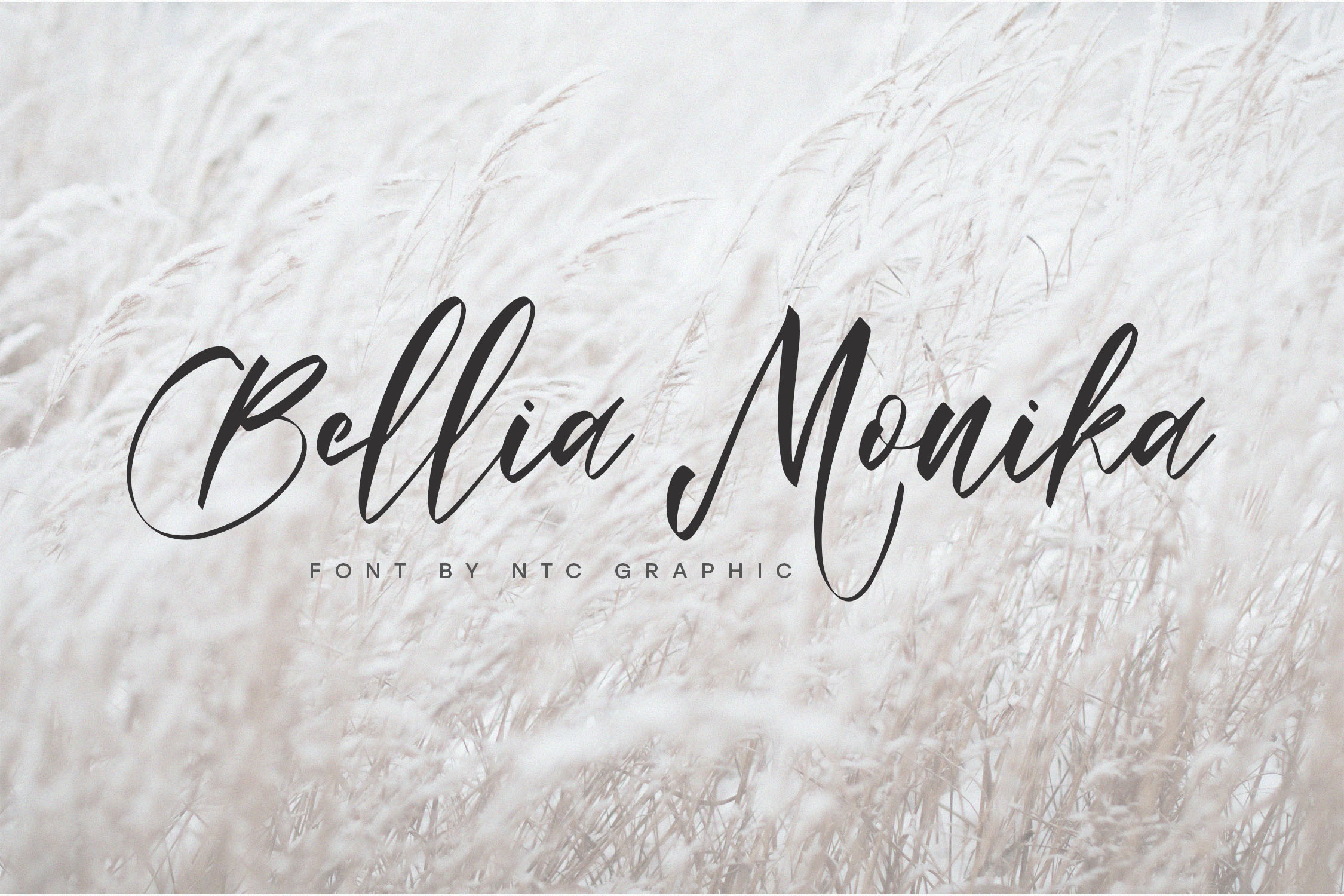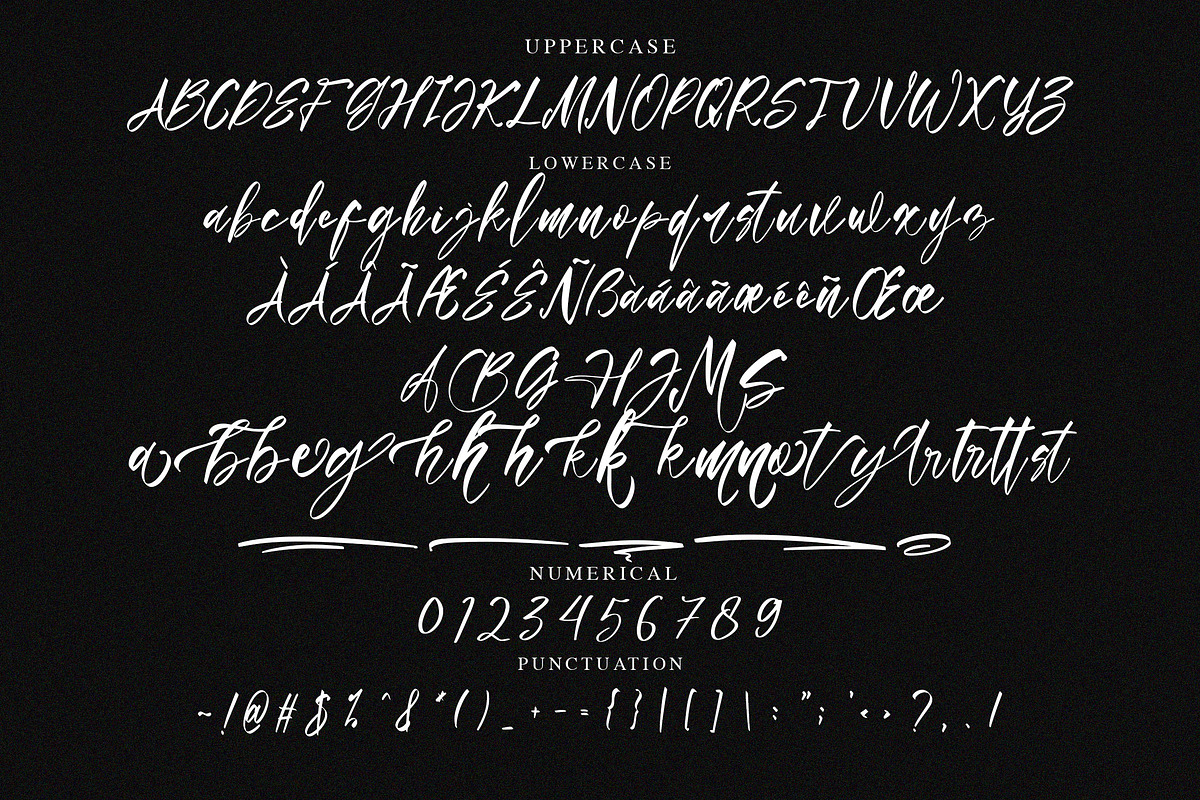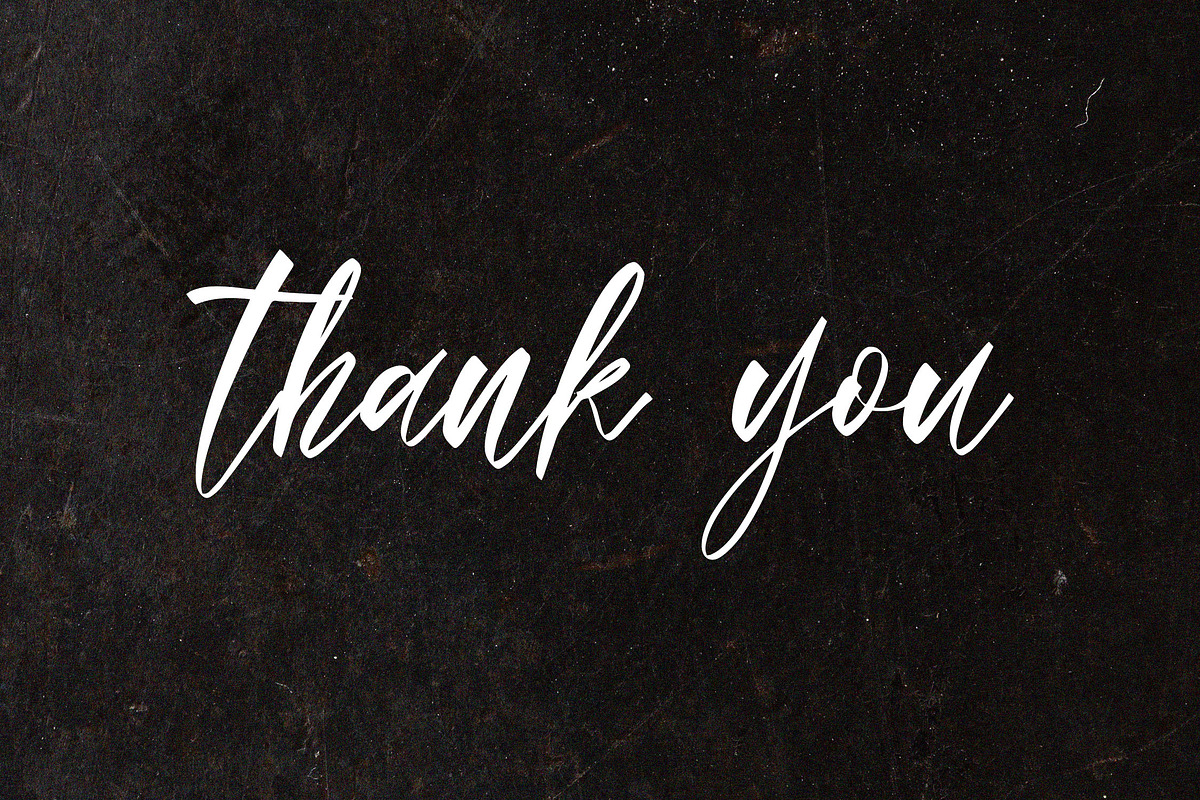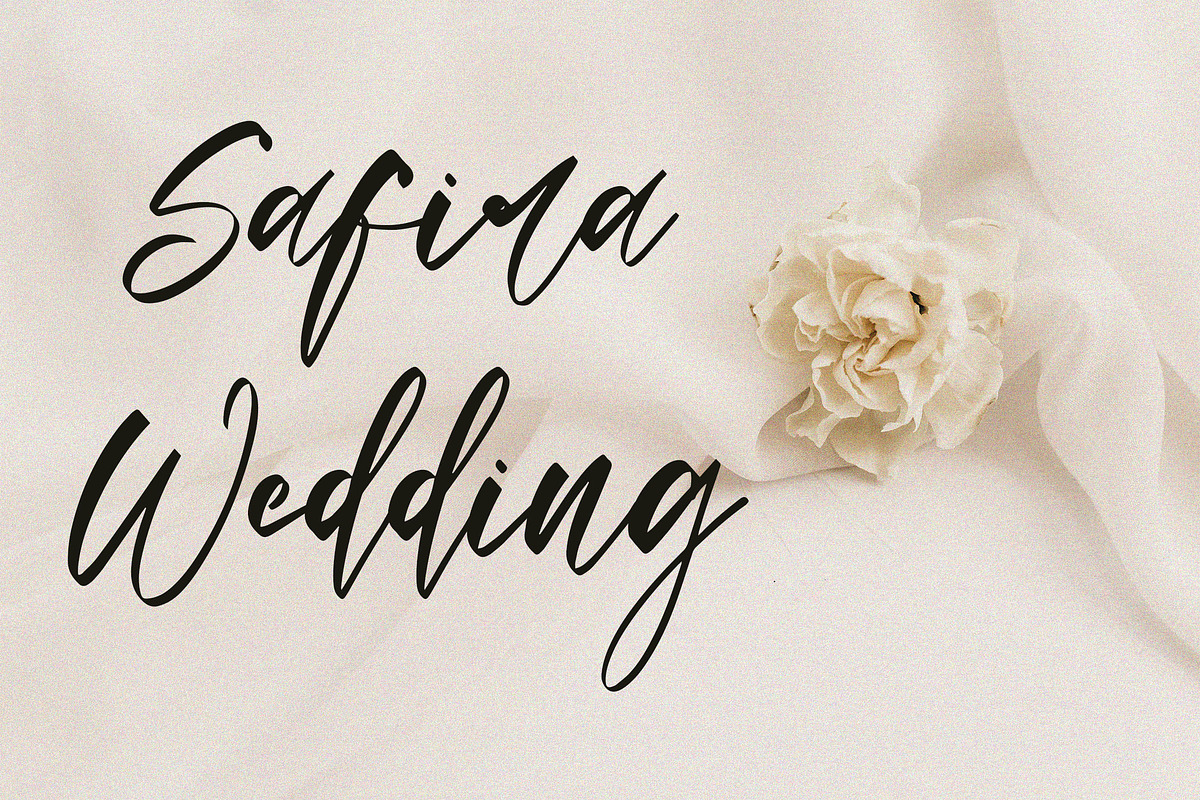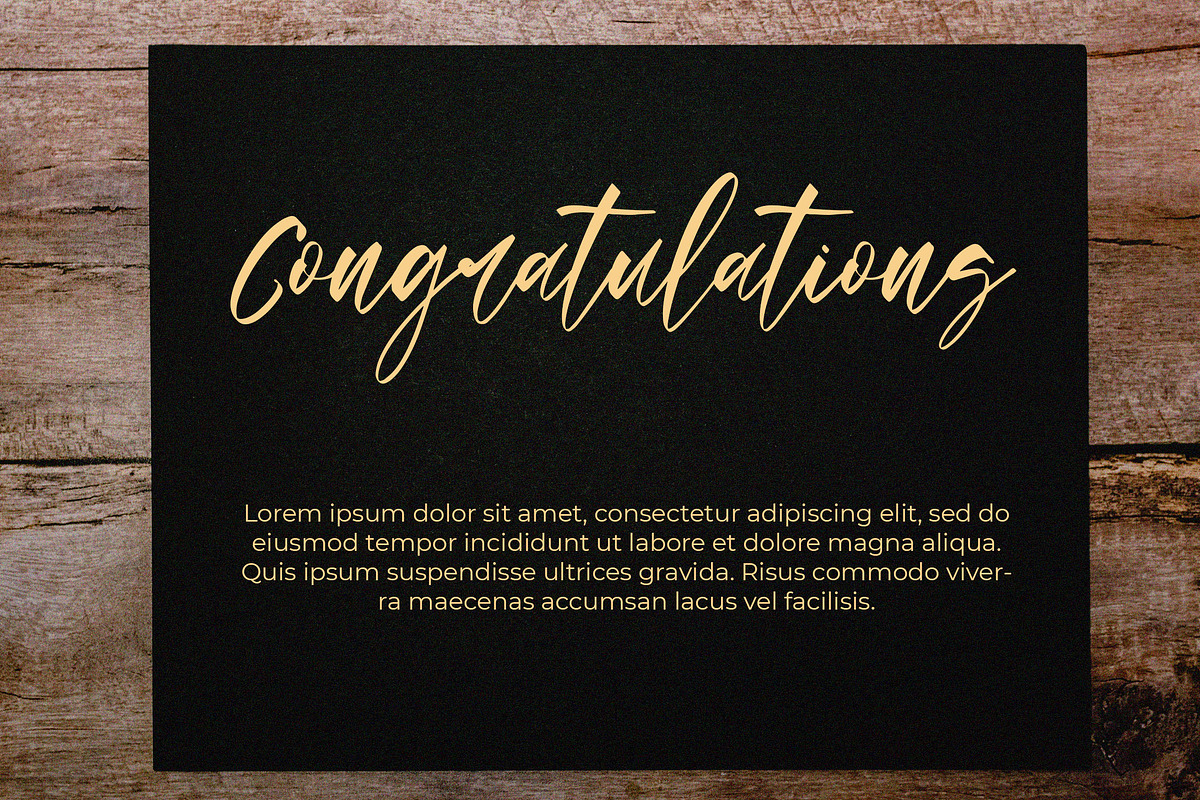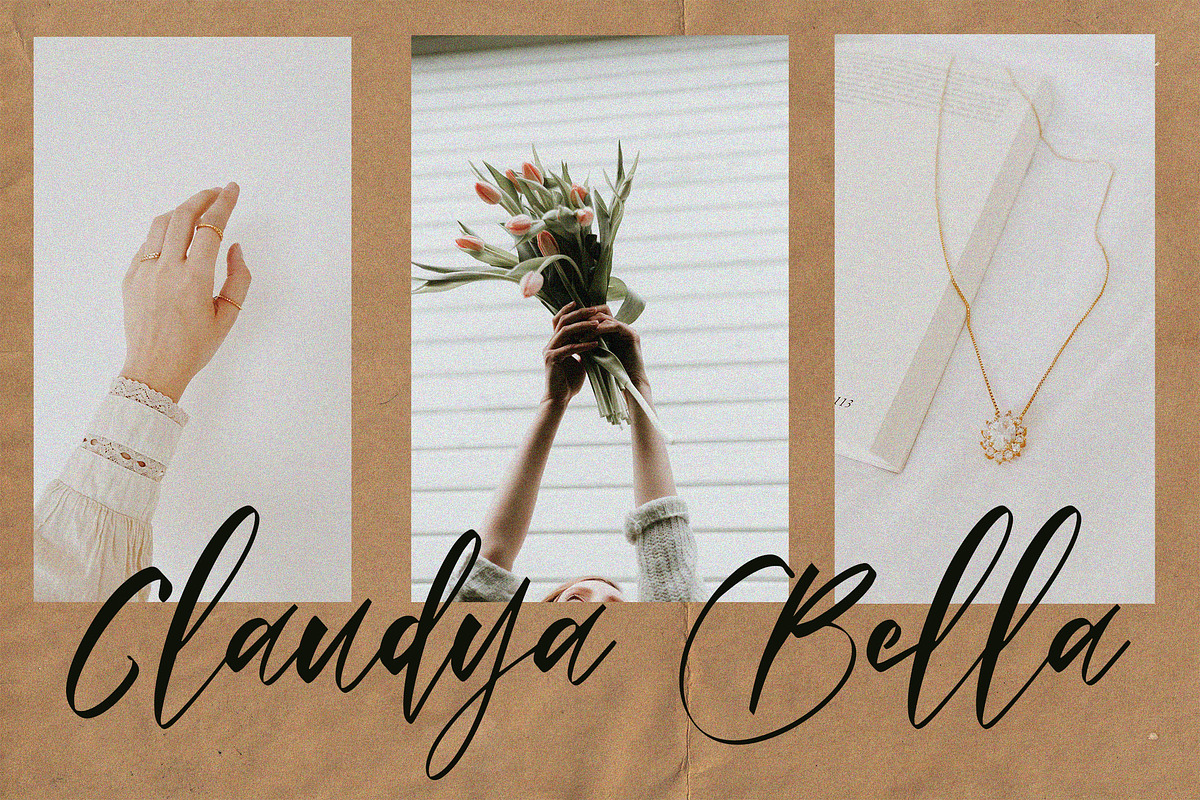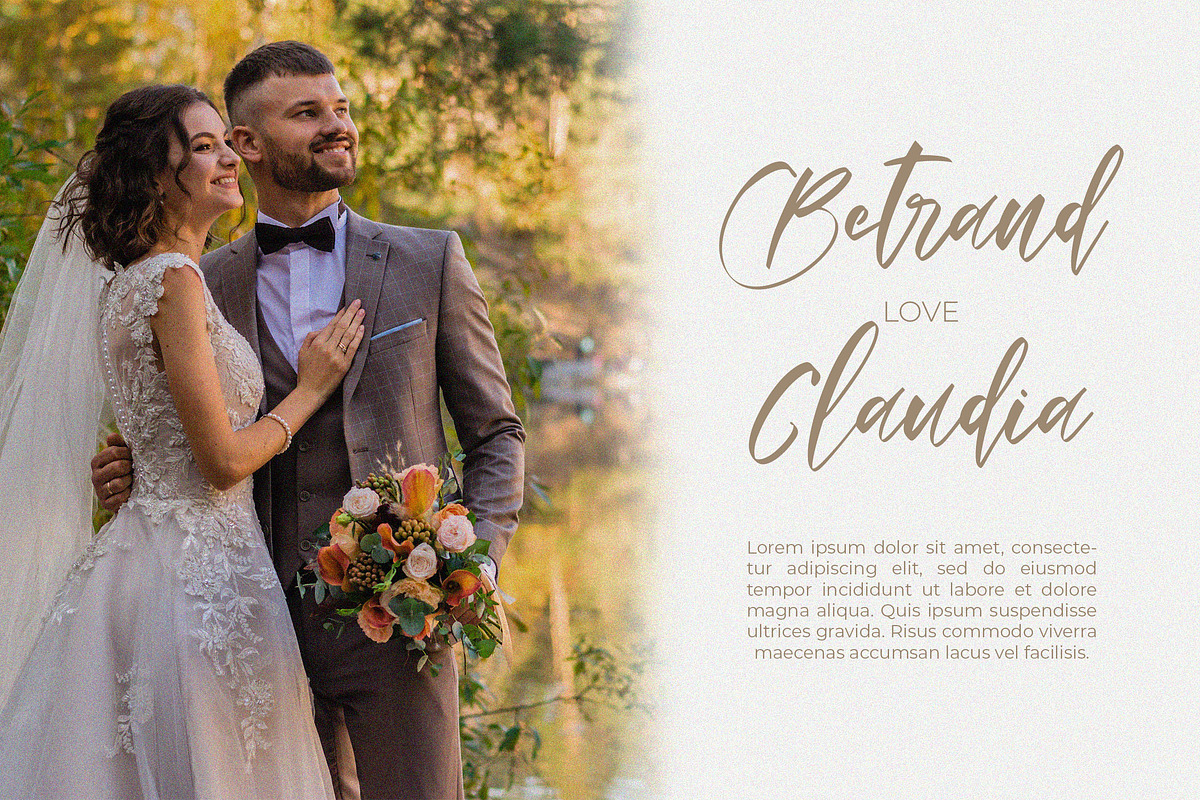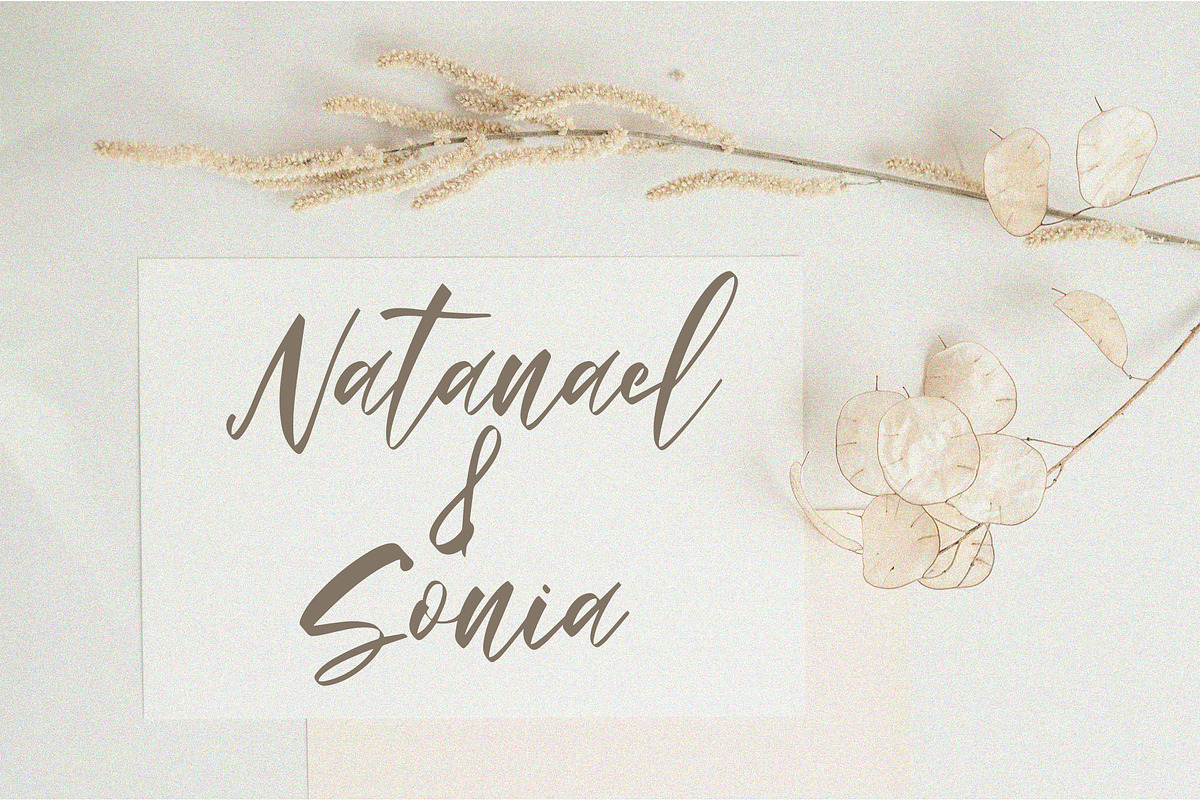
Bellia Monika Elegant Script Font
Bellia Monika is a beautiful script font with minimalist handwritten style. Is a font style that is made with scratches and curvature shapes font characters are very beautiful. Can be applied to support the graphic appearance of the product to be more attractive and unique.
- Stylistic Alternate